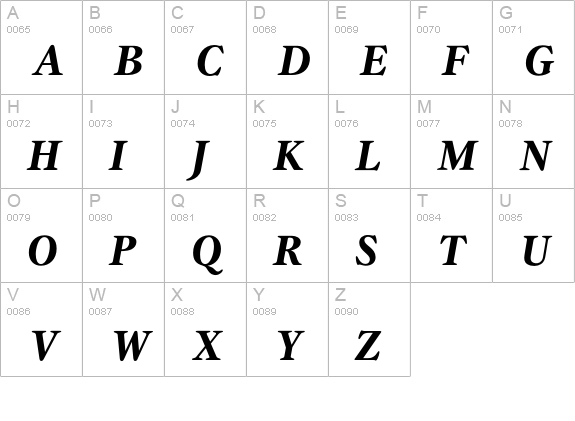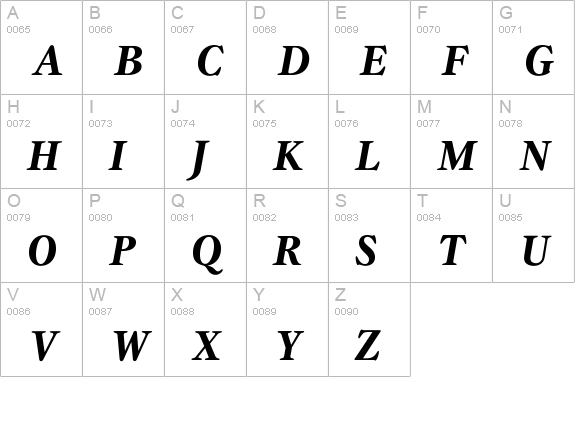
GammaBoldItalic Font Details
Introducing GammaBoldItalic, a stunning font that effortlessly combines elegance and boldness. This font is perfect for adding a touch of sophistication to any design project. With its unique blend of bold strokes and graceful curves, GammaBoldItalic commands attention and exudes confidence. What sets GammaBoldItalic apart is not just its impeccable design, but also its versatility. This font can be used across a wide range of applications, from logos and branding materials to website headers and social media graphics. Its bold and italic characteristics make it an ideal choice for emphasis and impact, while still maintaining a sense of elegance and refinement. But perhaps the best part about GammaBoldItalic is that it is available for free! That's right, this incredible font can be freely downloaded at FontsMarket.com. Whether you're a professional designer or just someone looking to add a touch of style to your personal projects, GammaBoldItalic is the perfect font to elevate your designs to the next level. So, why wait? Take advantage of this amazing opportunity to enhance your design toolbox with GammaBoldItalic. Download it today at FontsMarket.com and let your creativity soar with this versatile and captivating font.